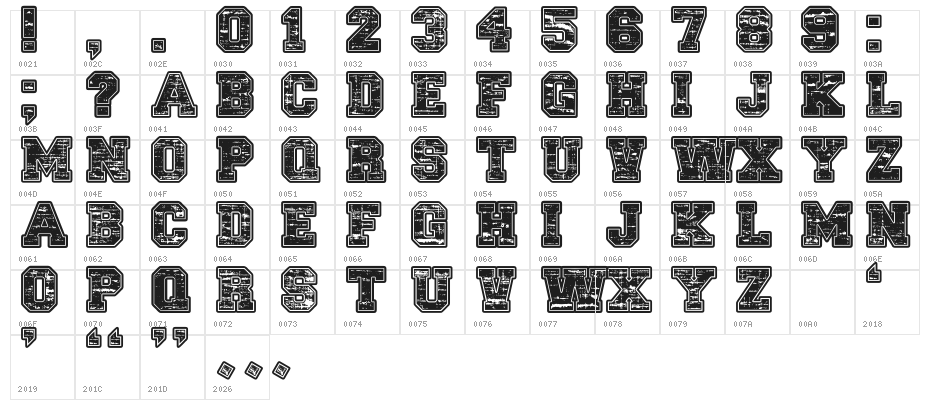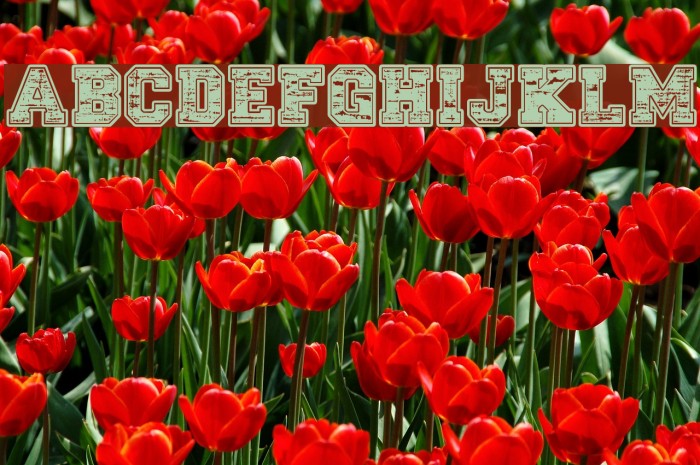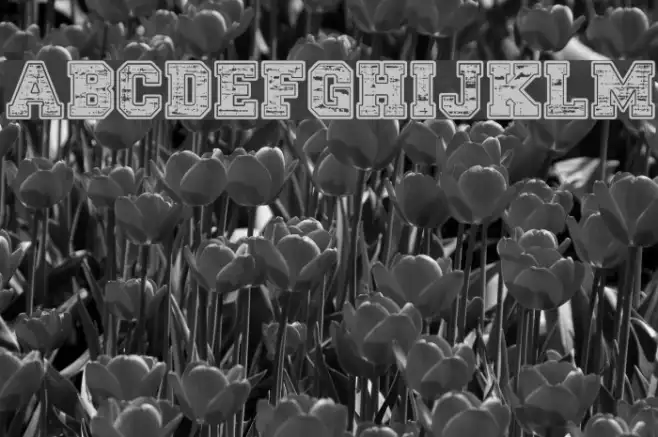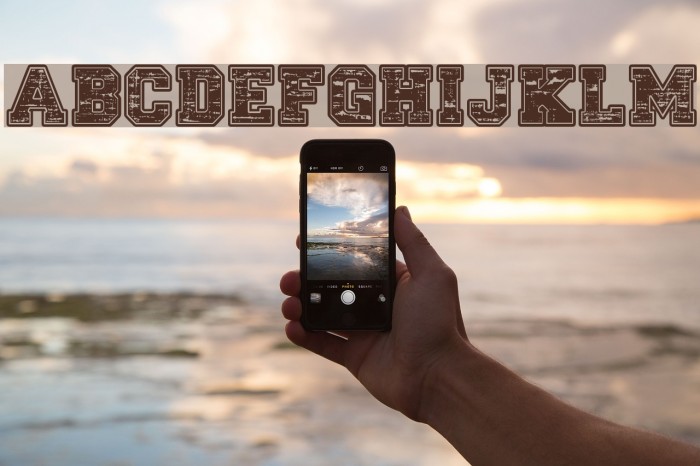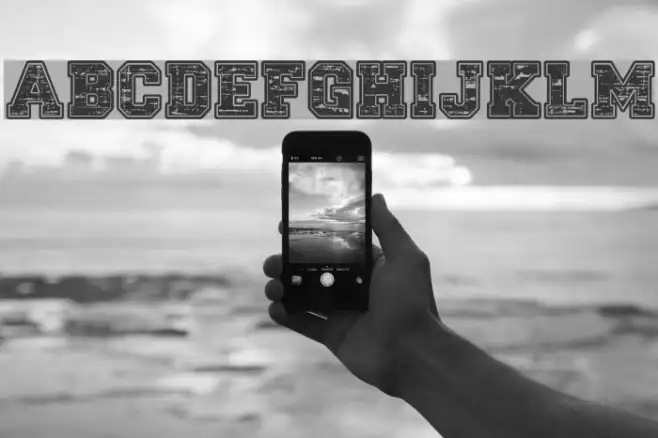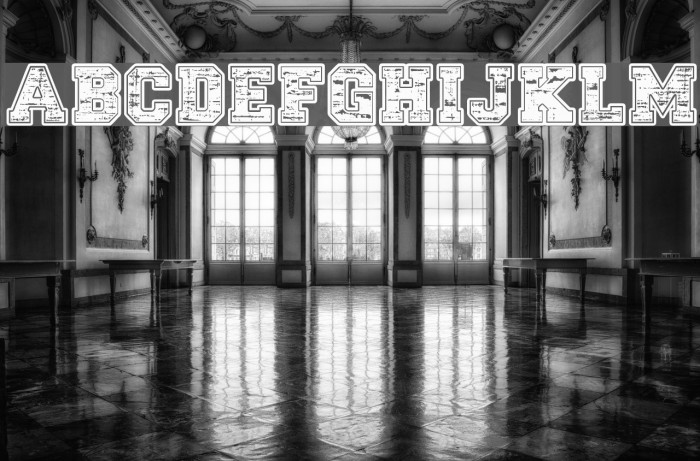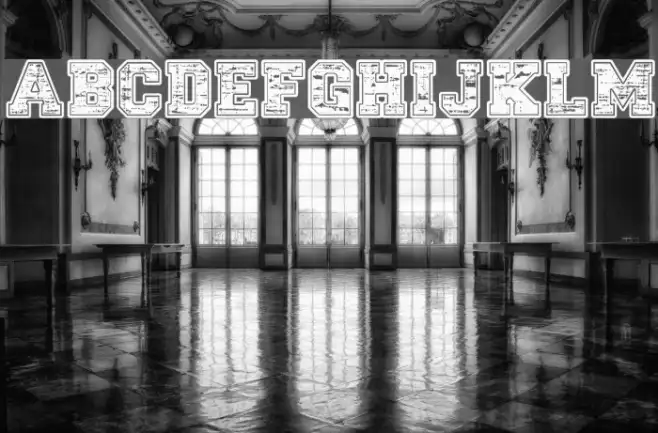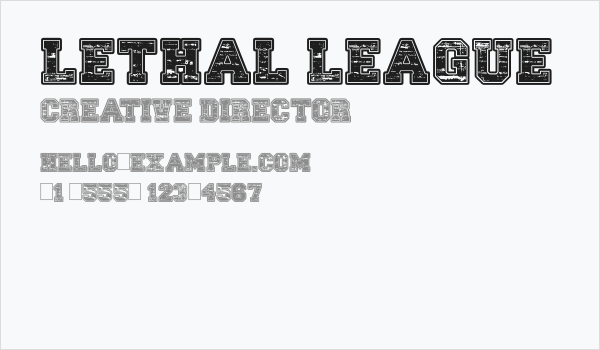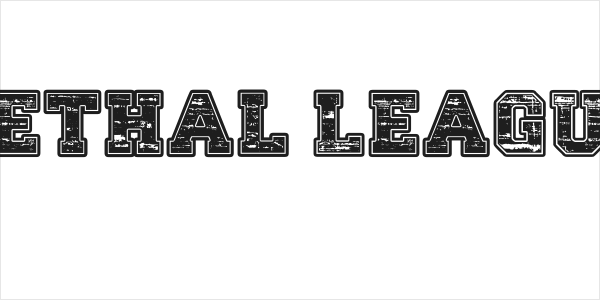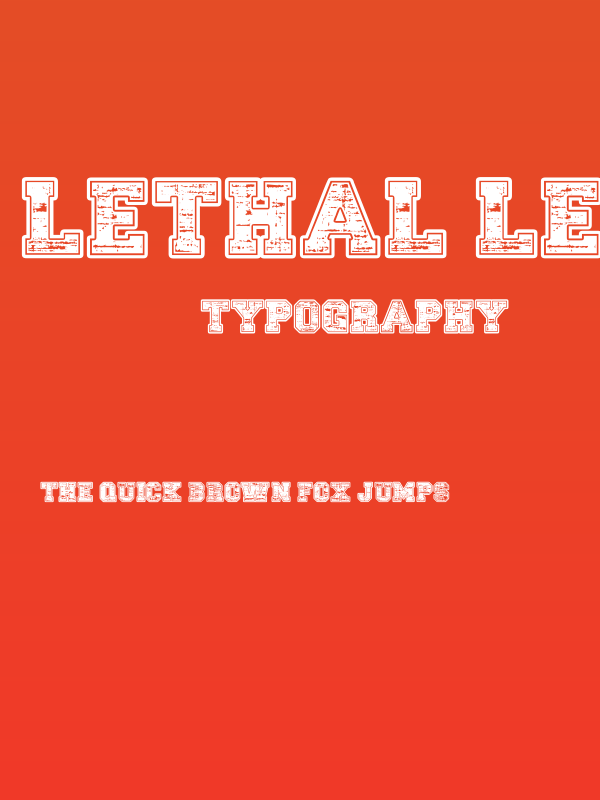
Lethal League Font
Lethal League Description
This font features a bold, distressed style with a strong, impactful presence. Each character is designed with a textured, worn-out look, giving it a rugged and vintage feel. The uppercase letters are prominent and commanding, while the lowercase letters maintain the same distressed aesthetic. Numbers and special characters are equally bold, ensuring consistency across all text elements. The font's design is reminiscent of old-school sports jerseys or vintage signage, making it ideal for projects that require a touch of nostalgia or a gritty, urban vibe. The characters are well-defined with a slight shadow effect, enhancing their three-dimensional appearance.
| Proposed Projects | Ideal for sports branding, vintage posters, urban-themed designs, and retro-style merchandise. |